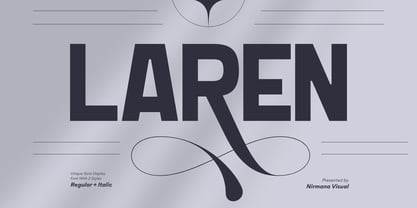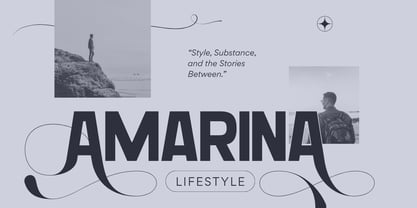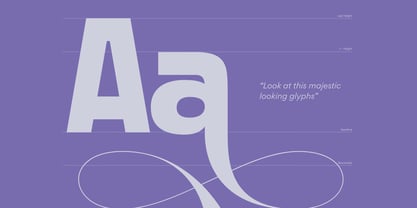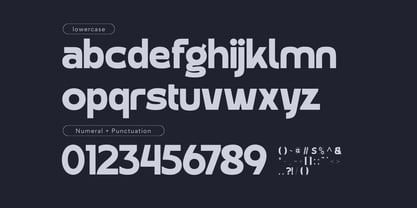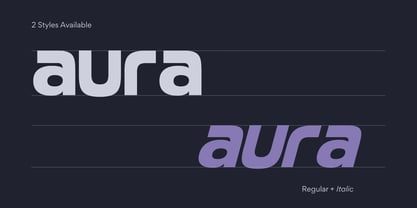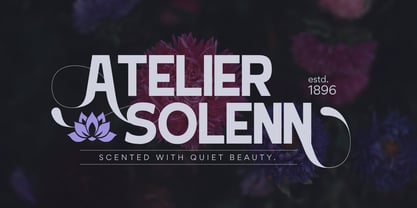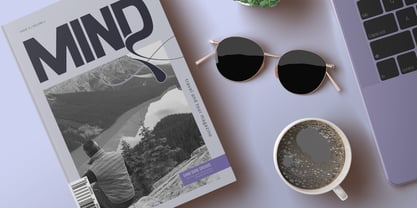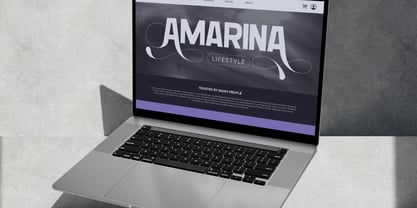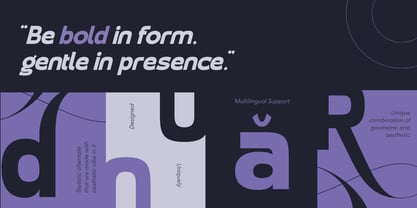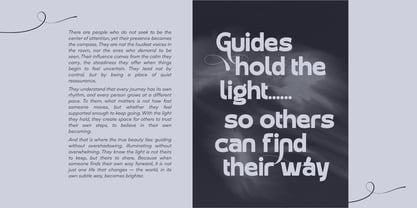
Laren Modern
by Nirmana Visual
The Laren Modern Font Family was designed by Sigit Dwipa and published by Nirmana Visual. Laren Modern contains 2 styles and family package options. More about this family
Laren Modern is an elegant sans-serif font designed for luxury and contemporary branding. Available in Regular and Italic styles, it features refined letterforms and many stylish alternates for creative flexibility. Perfect for logos, magazines, fashion covers, perfume packaging, and modern websites, Laren Modern brings a clean yet sophisticated touch to every design, combining timeless minimalism with a high-end aesthetic.
Designers: Sigit Dwipa
Foundry: Nirmana Visual